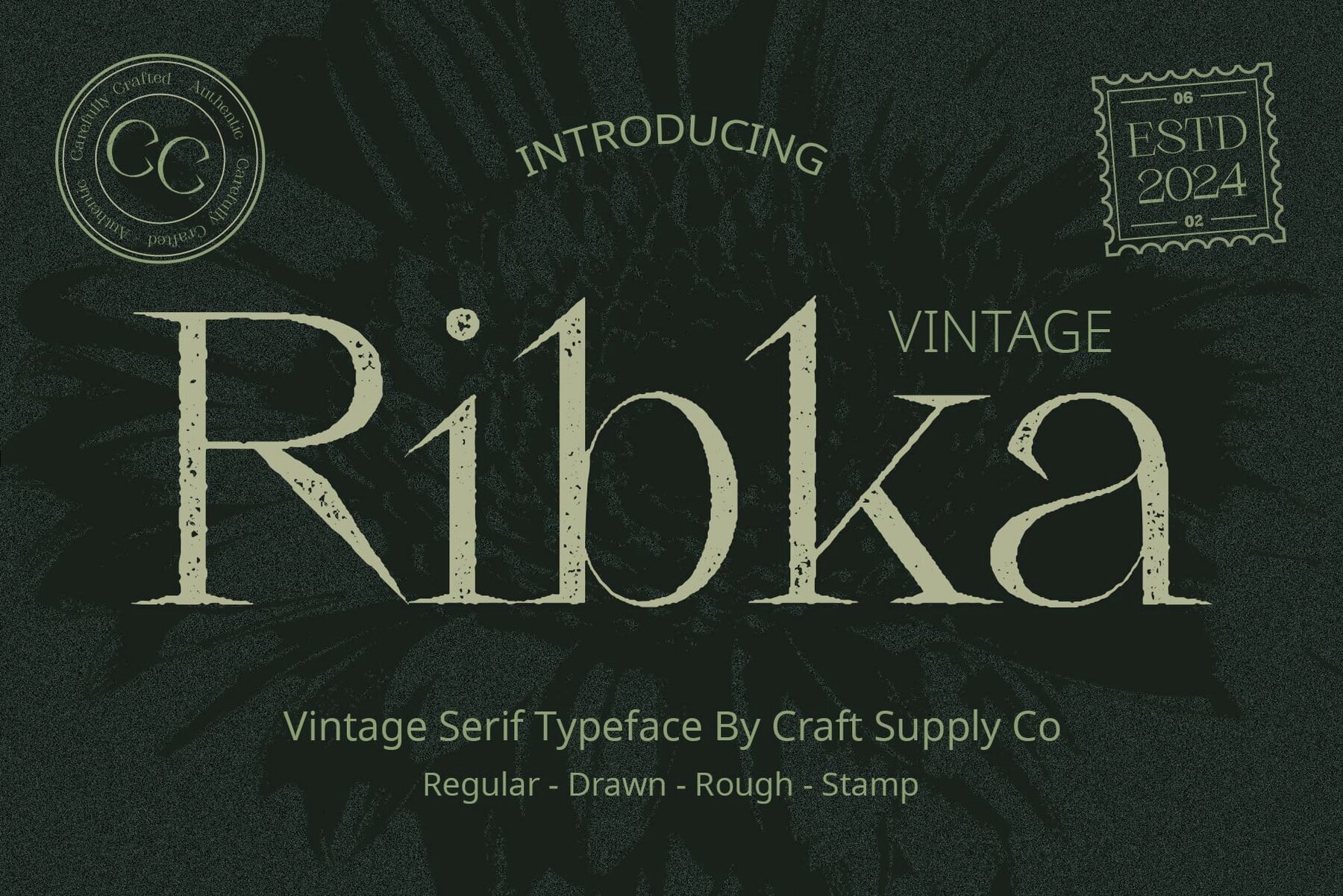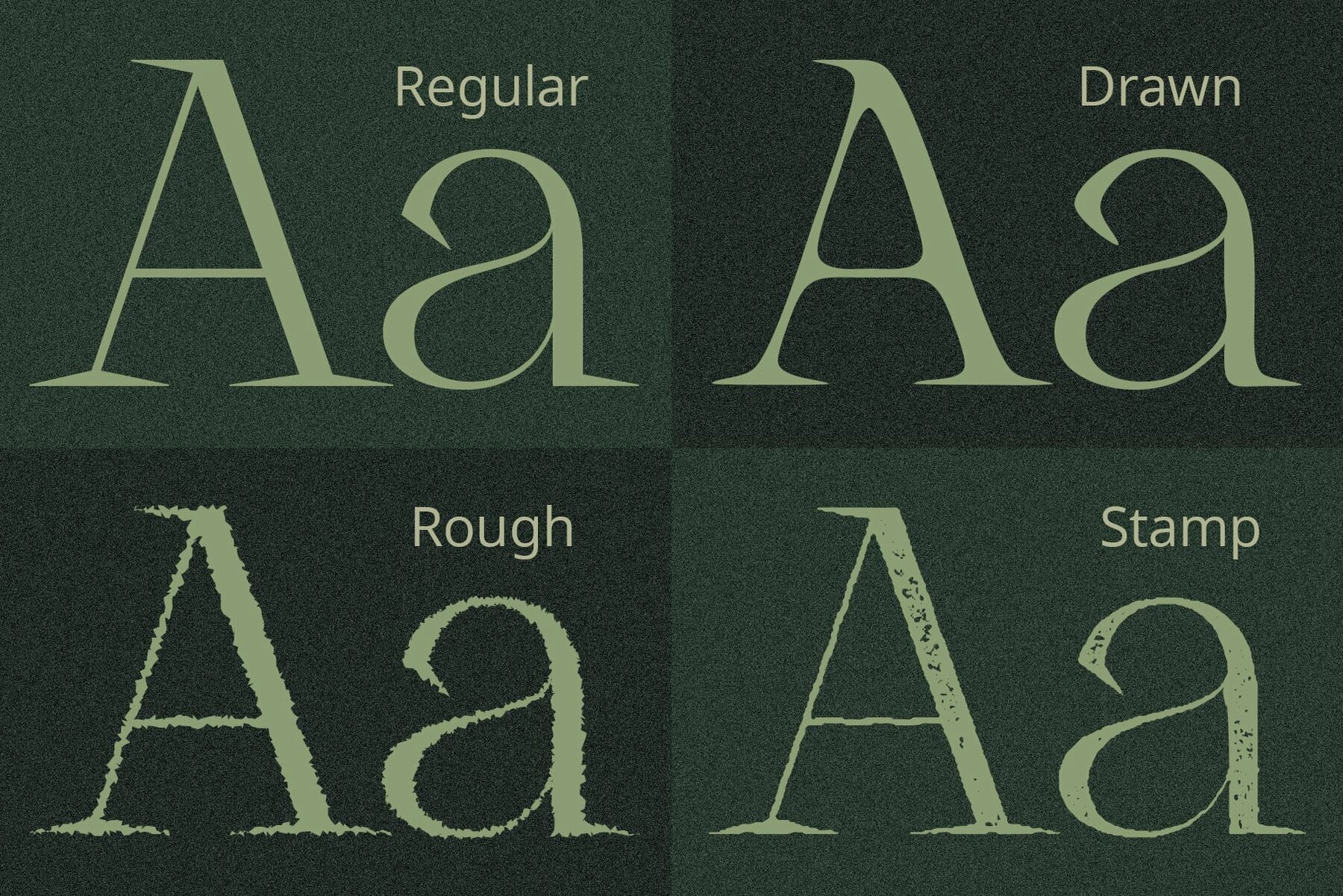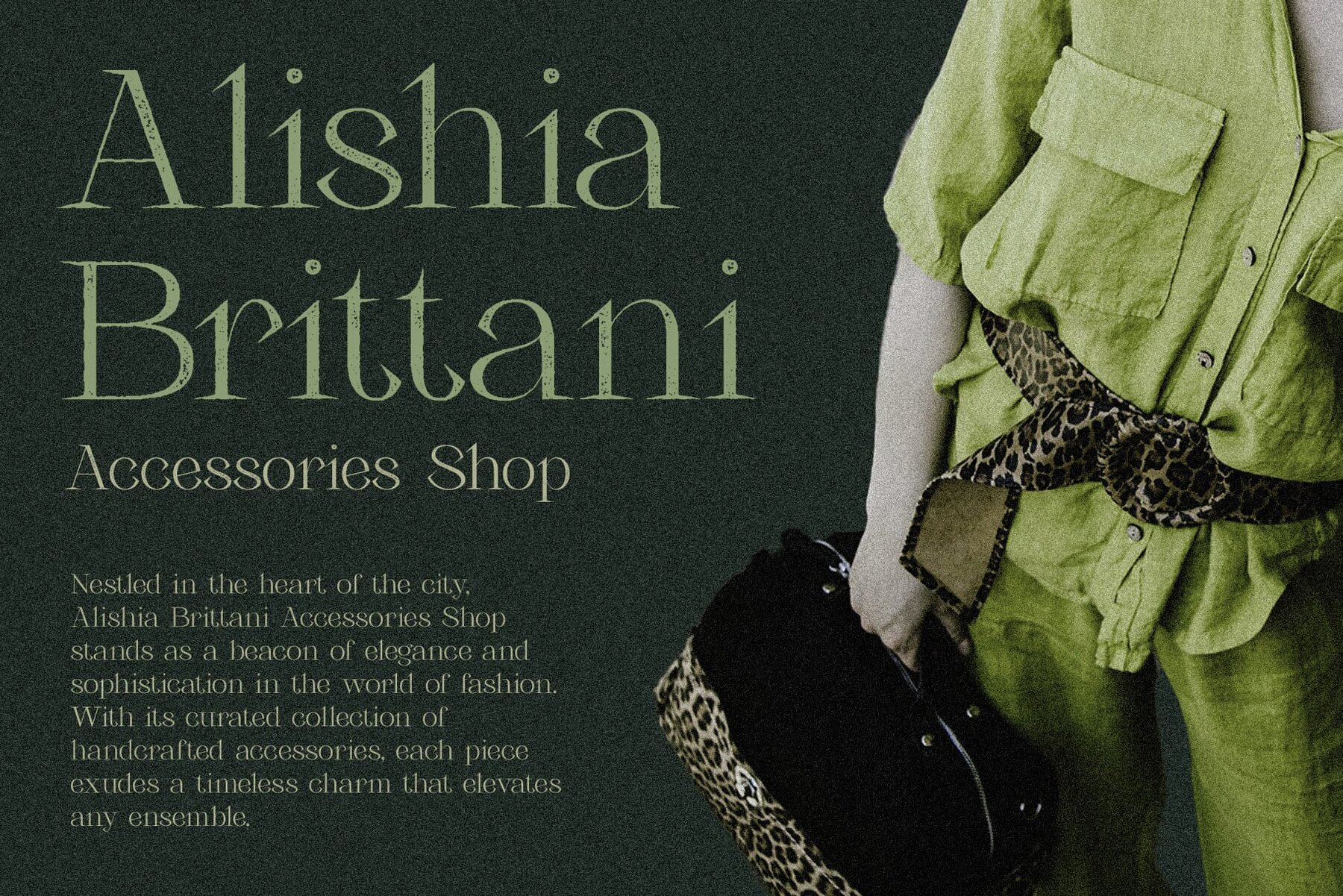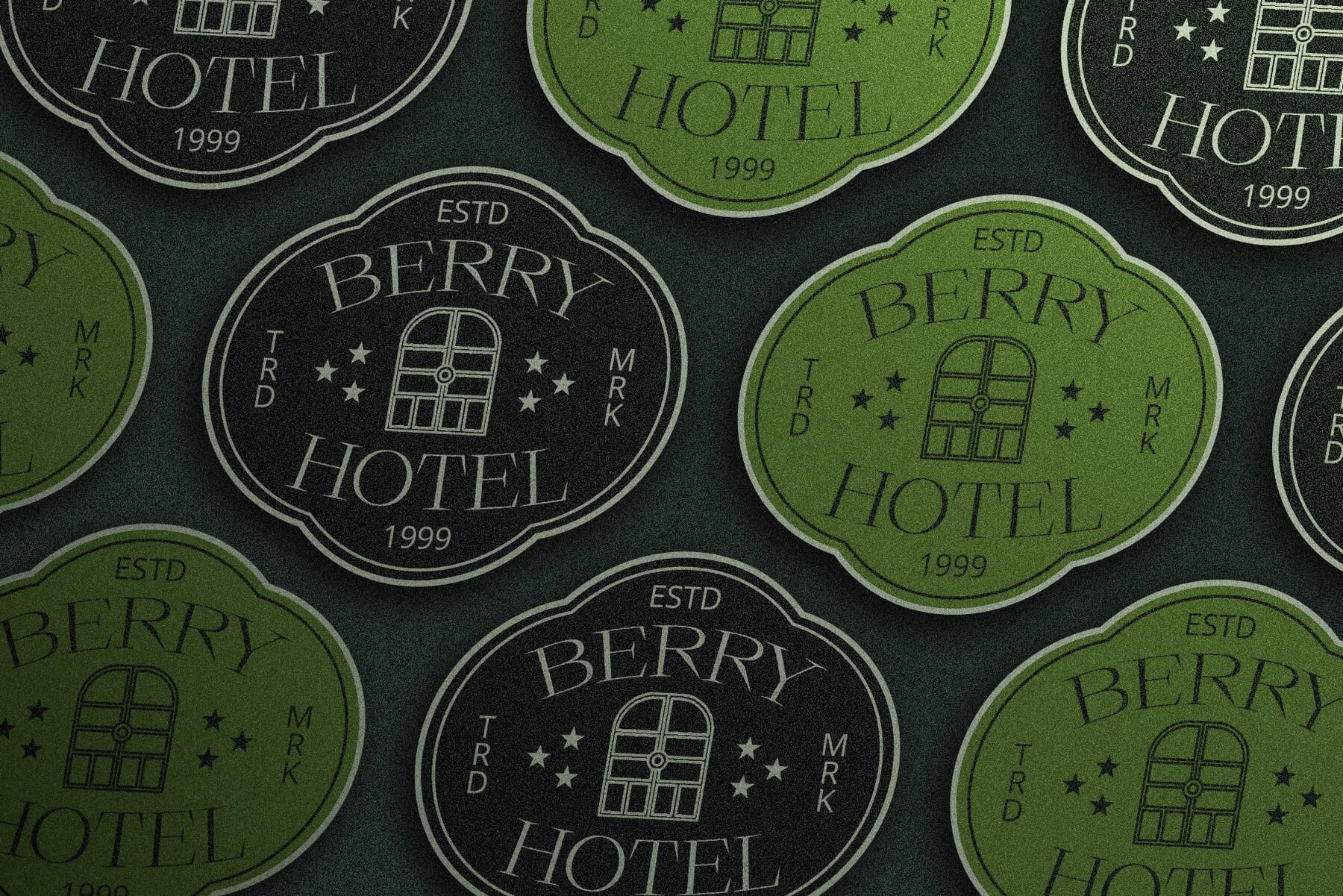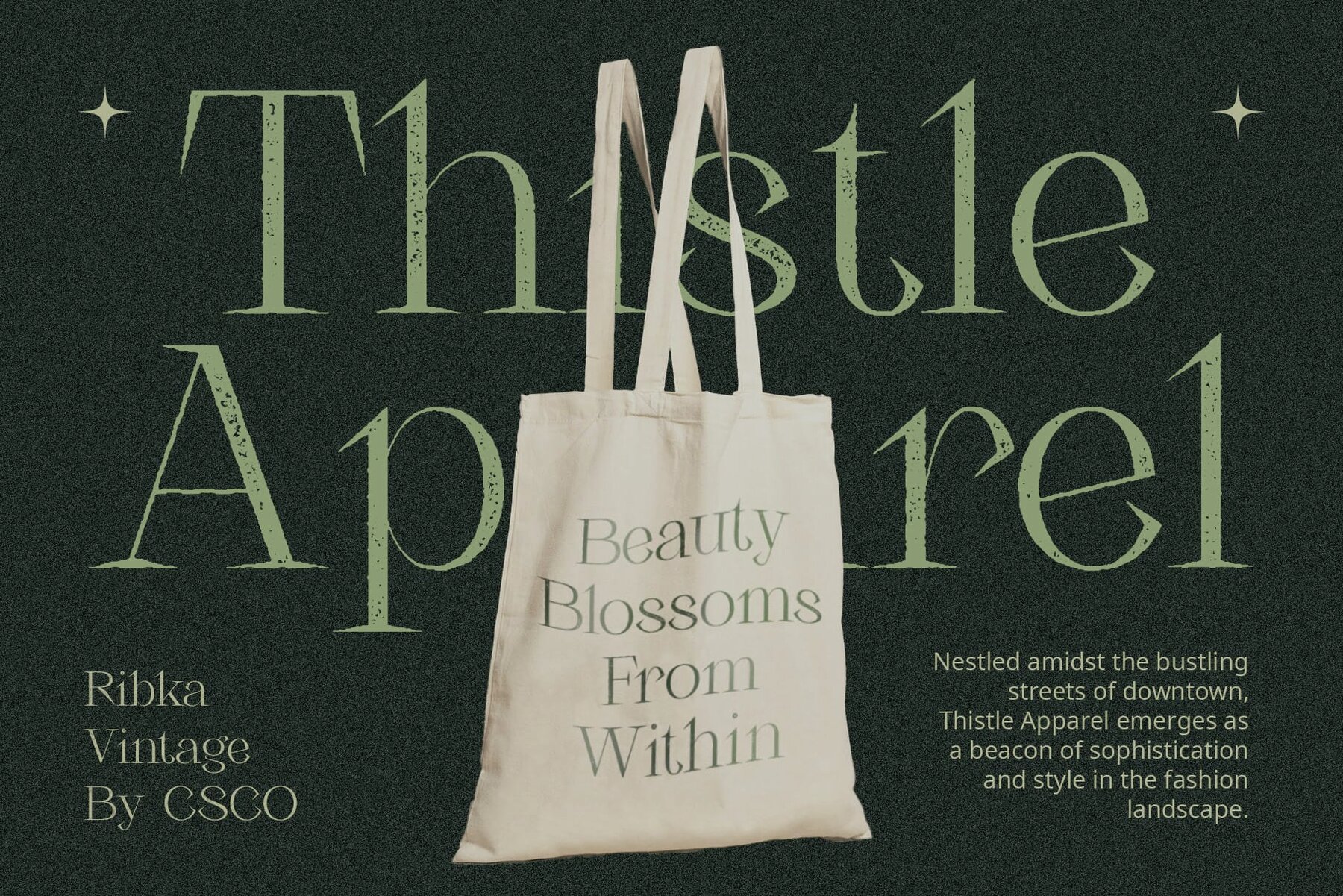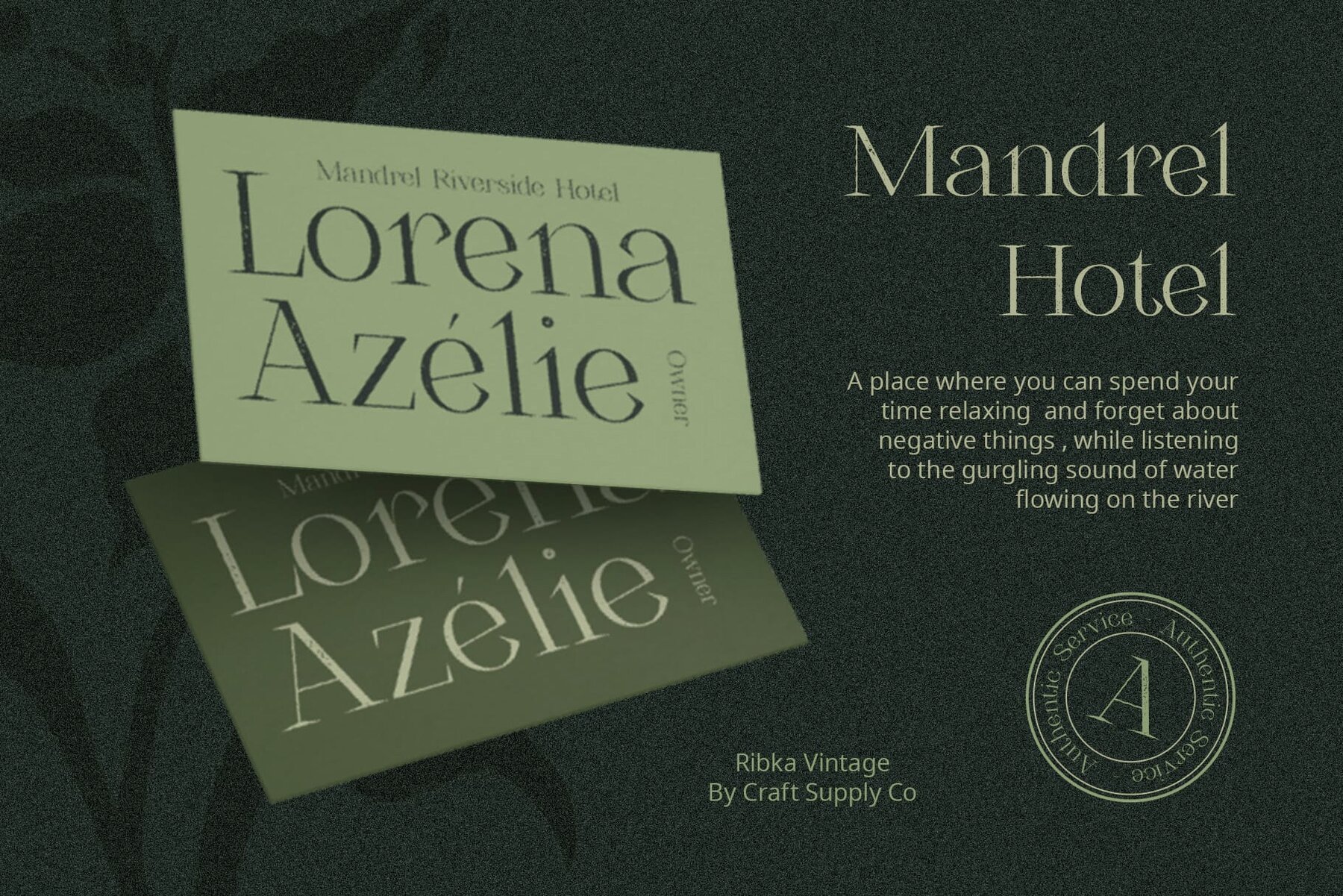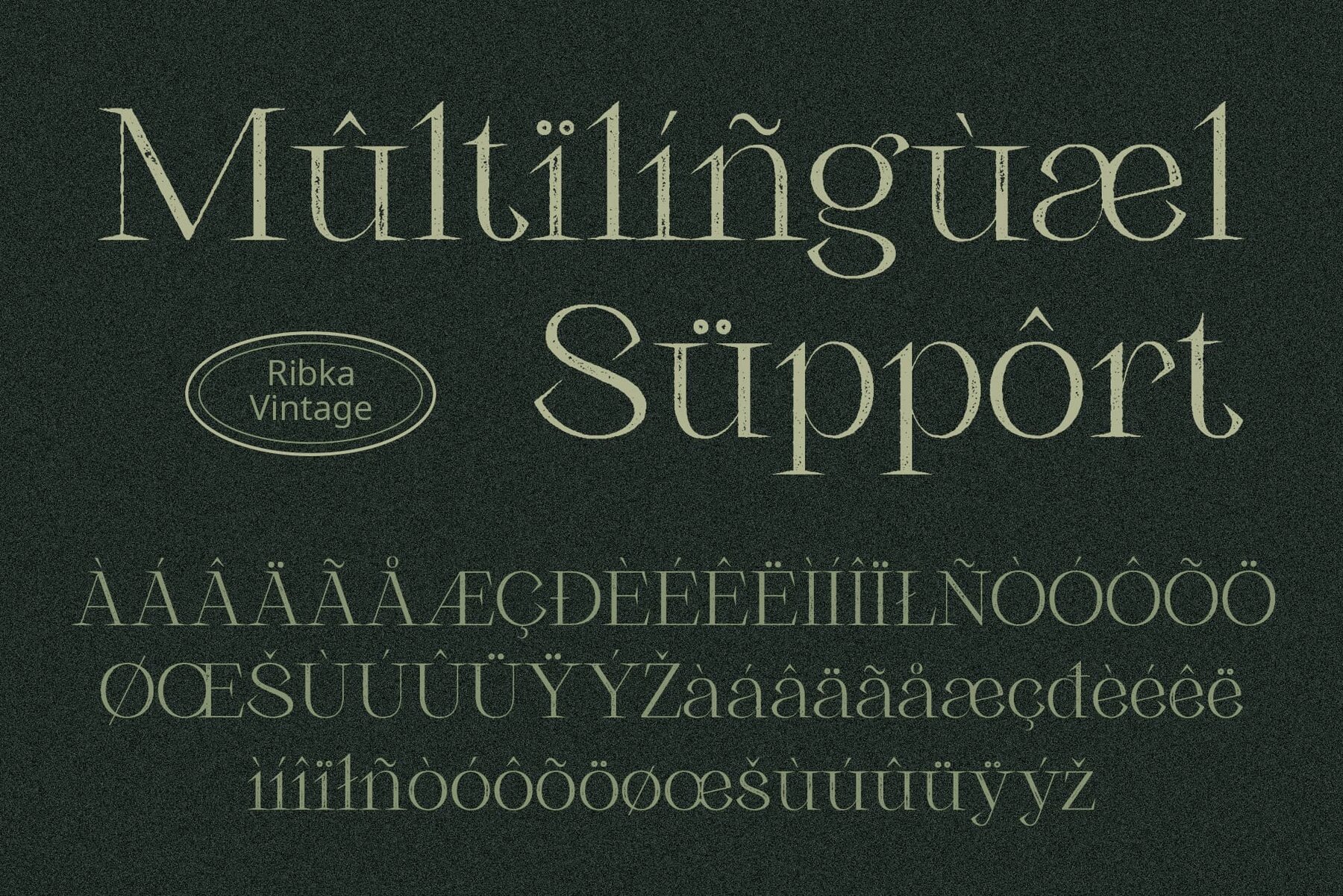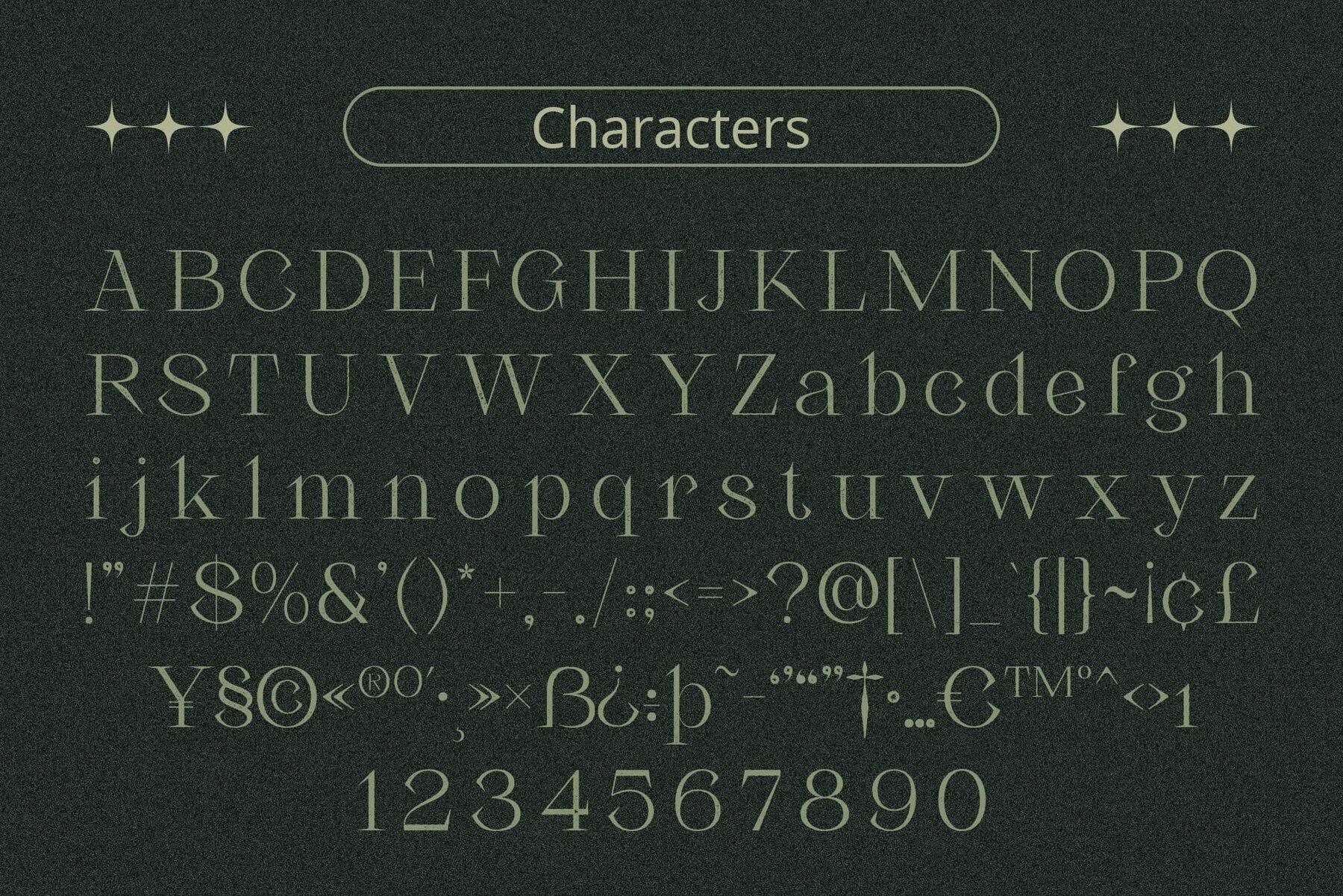
Ribka Vintage Font
Ribka Vintage by Craft Supply Co. captures the essence of vintage charm with its distinct style. This font, characterized by its unique design elements, brings elegance and sophistication to any project. Ribka Vintage showcases sharp serif shapes that evoke a classic elegance. The pointed serifs add a touch of refinement to your designs, making it ideal for projects requiring sophistication. This font stands out with its vintage rough effects, which exude authenticity and character. The textured letters provide a unique charm, perfect for drawing attention in display projects. The combination of sharp serifs and vintage roughness ensures each character demands attention. Ribka Vintage's striking appearance makes it an excellent choice for display purposes. From posters to packaging, Ribka Vintage offers versatility across various design applications. Its timeless appeal and vintage-inspired aesthetic add retro charm to any project. Ribka Vintage blends the elegance of sharp serifs with the authenticity of vintage roughness, creating a captivating typeface with timeless allure. Ideal for branding or signage, it enriches any display project with vintage charm. No specialized software is needed to use this typeface. If you have any inquiries or need assistance, please get in touch. We appreciate your support in making your creative projects shine!Ribka Vintage: Embracing Vintage Charm in Typography
Sharp Serif Appeal
Vintage Rough Aesthetics
Eye-Catching Display
Versatile Design Applications
A Blend of Elegance and Authenticity